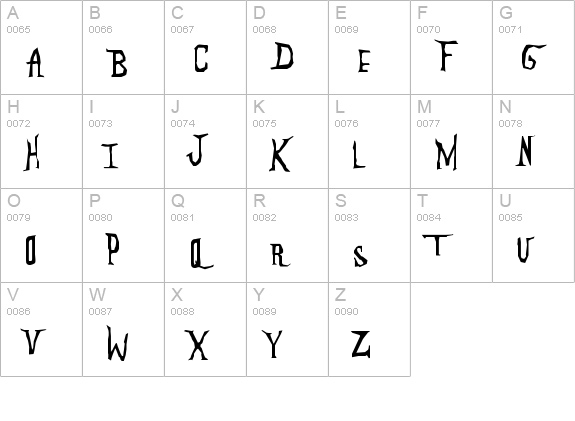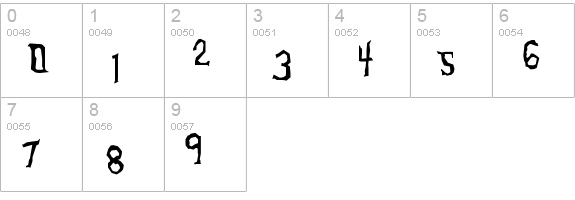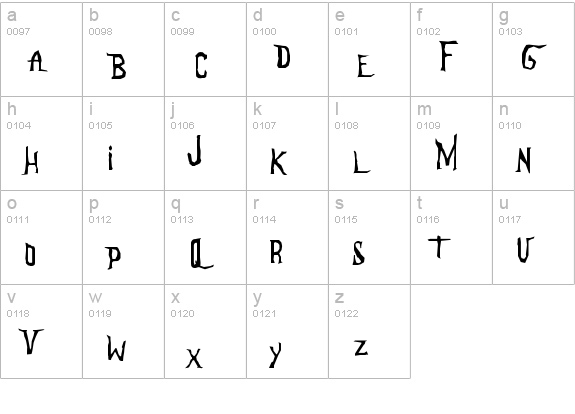
Anderson The Mysterons Font Details
Introducing Anderson The Mysterons font, a striking and enigmatic typeface that exudes a sense of mystery and intrigue. With its bold and distinctive letterforms, this font is perfect for adding a touch of drama to your designs. The unique style of Anderson The Mysterons font is sure to capture attention and leave a lasting impression. Best of all, Anderson The Mysterons font is available for free download at FontsMarket.com. Whether you're working on a poster, logo, or any other creative project, this font will elevate your design and give it a touch of mystique. Don't miss out on the opportunity to add this captivating font to your collection today!